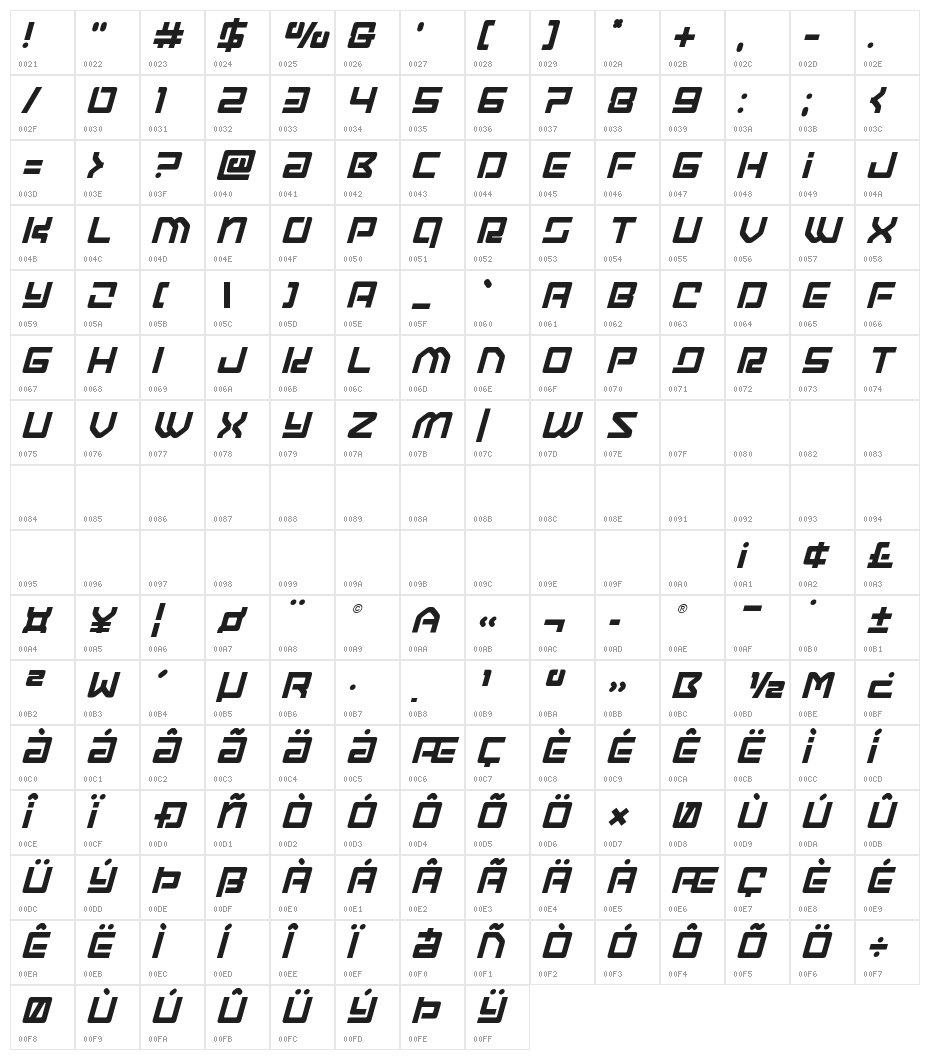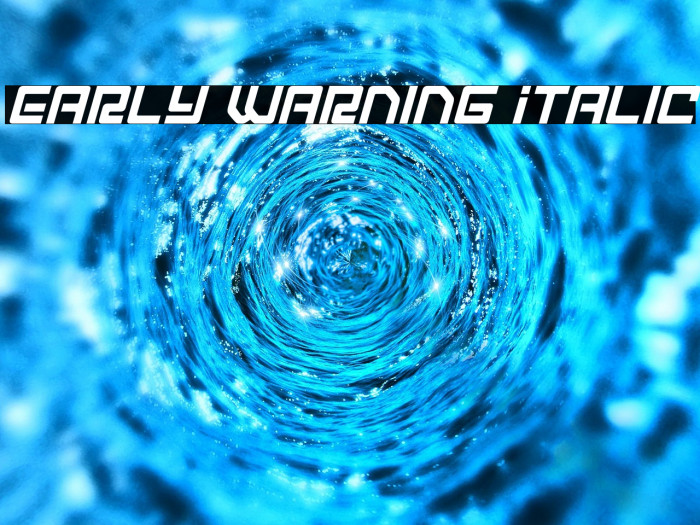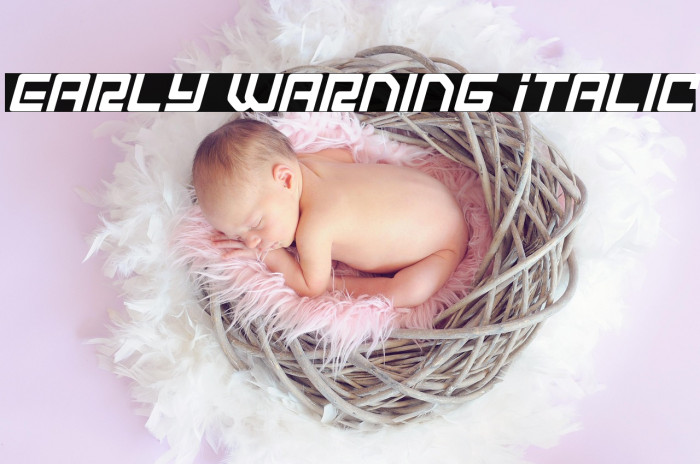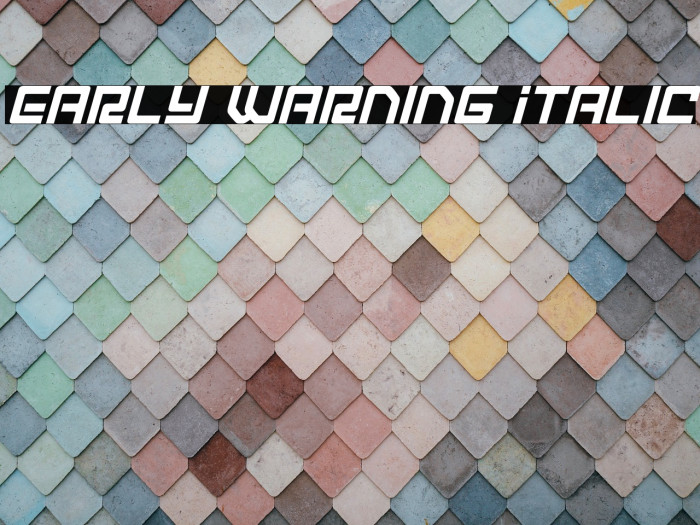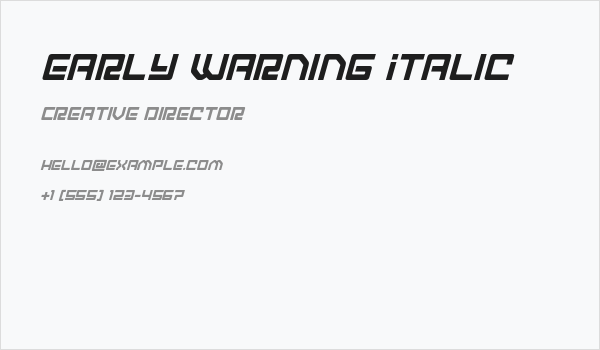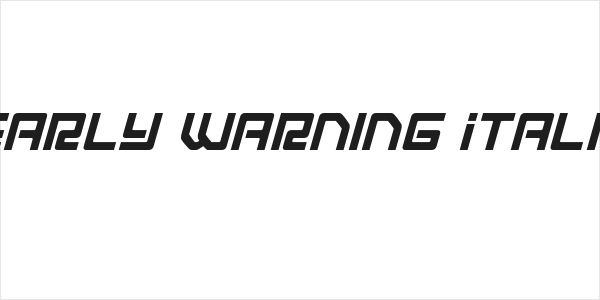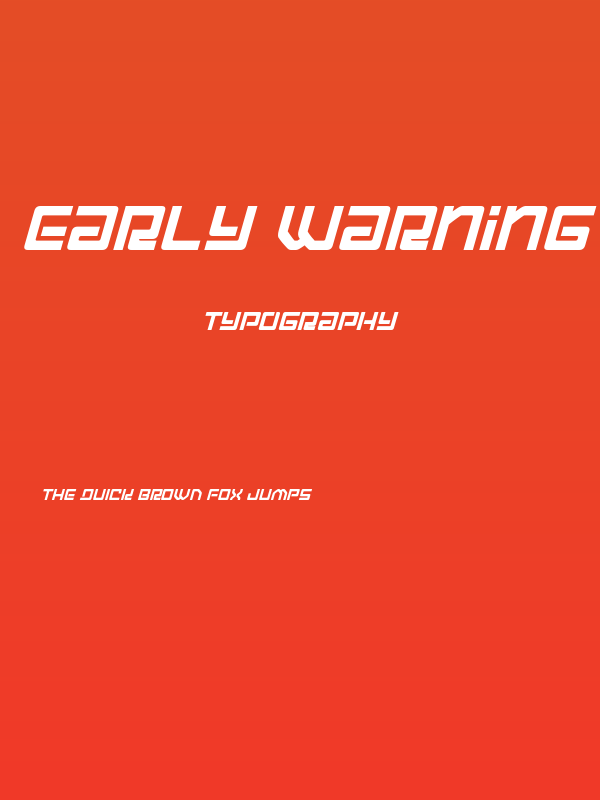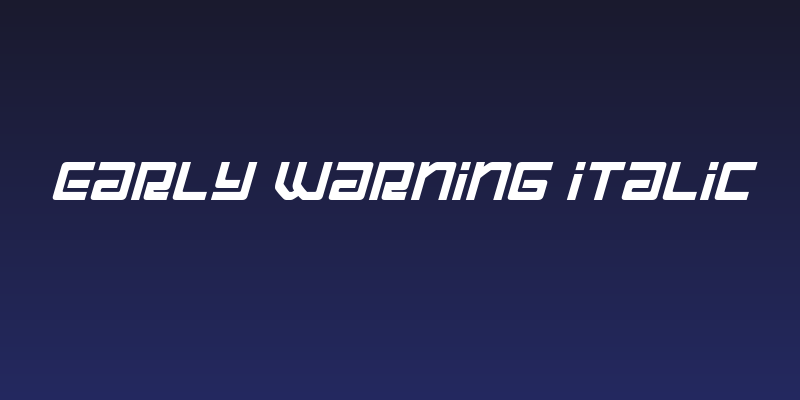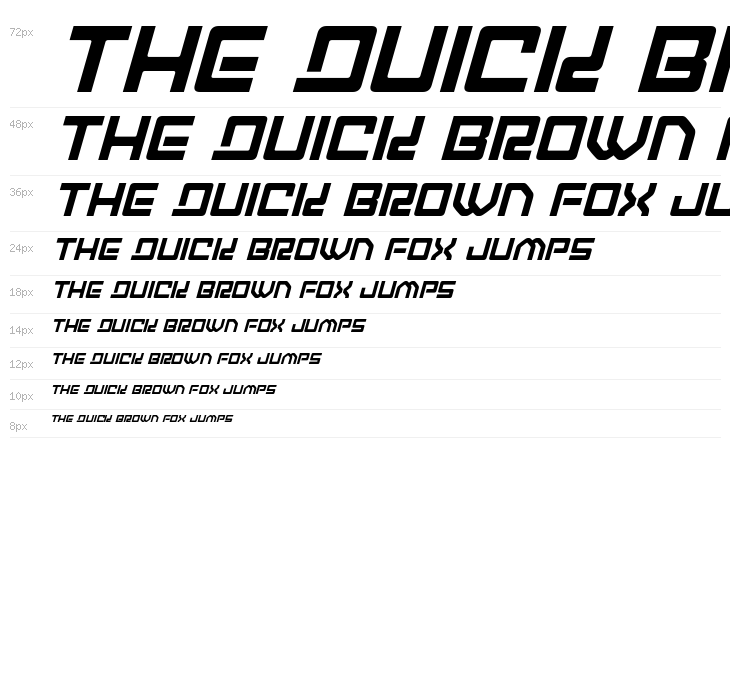
Early Warning Italic Font
Early Warning Italic Description
This font features a bold, italicized style with a futuristic and dynamic appearance. The characters are angular and slightly condensed, giving a sense of speed and urgency. The uppercase and lowercase letters maintain a consistent slant, enhancing the italic effect. The numbers and special characters follow the same design principles, ensuring uniformity across the font. The strokes are thick, providing high visibility and impact, making it suitable for attention-grabbing headlines or branding. The overall design is modern and sleek, with a technical edge that could appeal to technology or automotive industries.
| Proposed Projects | Ideal for technology branding, automotive advertisements, sports team logos, and dynamic headlines. |